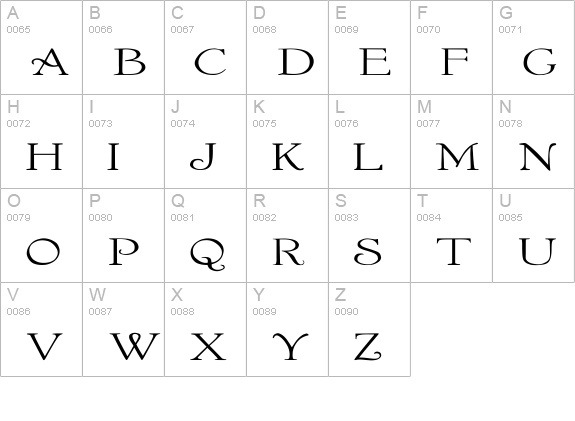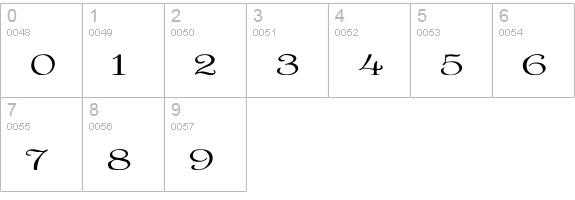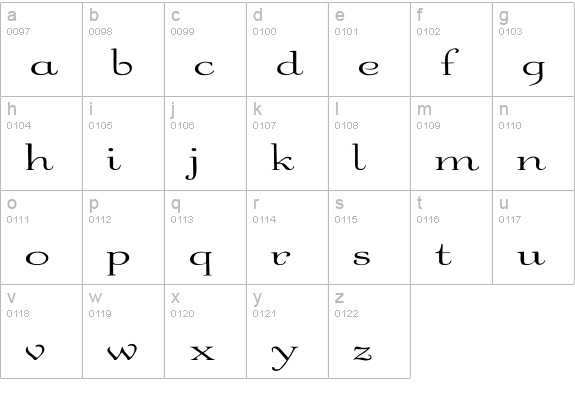
Garton Regular Ex is the standard, neutral variant in the Garton typeface family \xE2\x80\x94 well suited to general body text, paragraphs, and standard typographic work.
Garton Regular Ex font is a modern and versatile typeface that combines elegance with readability. Its clean lines and balanced proportions make it suitable for a wide range of design projects, from branding to editorial layouts. The font features a unique twist on traditional letterforms, giving it a distinct and memorable look. What sets Garton Regular Ex font apart is that it is not only stylish and functional but also completely free to download. This means that designers and creatives can access this high-quality font without any cost, making it a valuable resource for projects of all sizes. For those interested in adding Garton Regular Ex font to their collection, it is available for free download at FontsMarket.com. Simply visit the website and enjoy the convenience of accessing this versatile font at no charge. With its modern aesthetic and accessibility, Garton Regular Ex font is sure to elevate any design project it is used in.